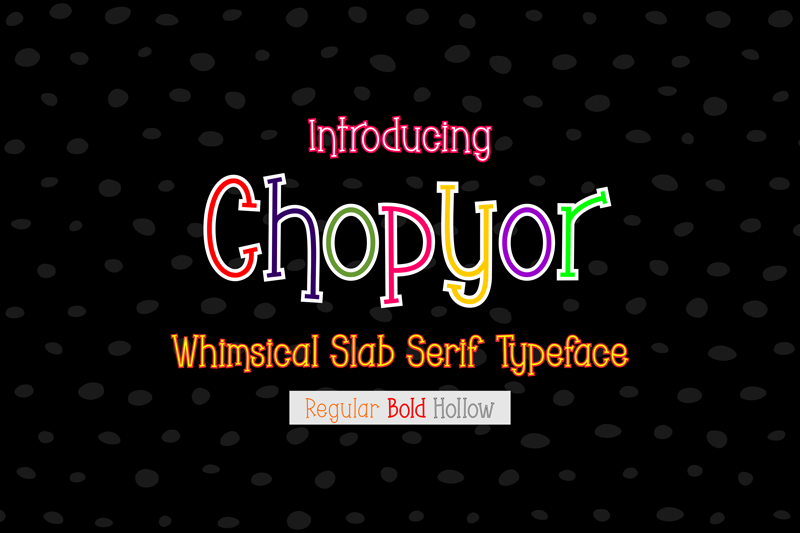
Font name: | Chopyor |
Author: | Mohammad Azmil Bahar |
Note by Mohammad Azmil Bahar | |
Chopyor is whimsical slab serif font with a cute and playful feel. It will add a unique spark to any design project! |